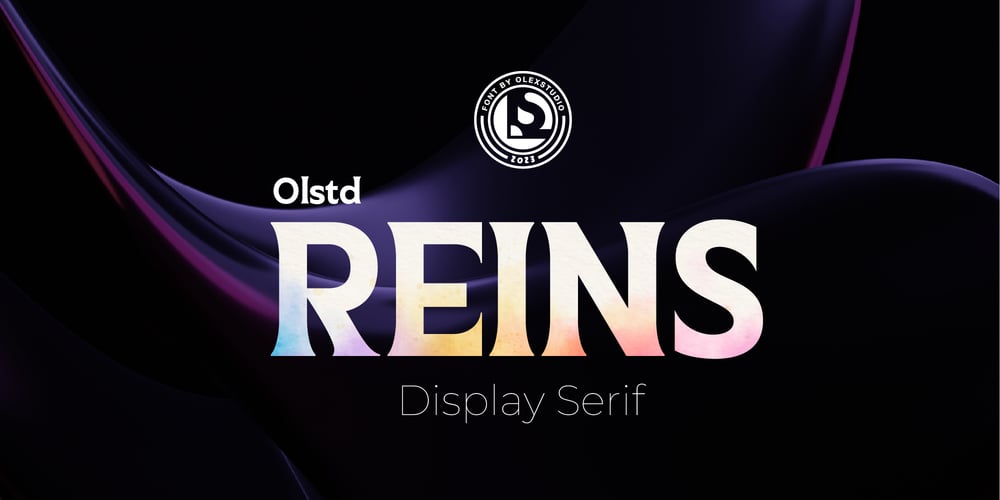
Reins Olstd Font Family was designed by Firman Syah and published by Olexstudio. Reins Olstd contains 1 styles and family package options. REINS Olstd – Display Serif Font will look gorgeous on all your designs, invitation, poster design, book design, branding materials, logo’s, and all project design other.WHAT’S INCLUDEDREINS Olstd – Display Serif Font contains standard characters, Lowercase, Uppercase, numbers, punctuation, ligatures and international glyphs.Enjoy Designed.!RegardOlexstudio